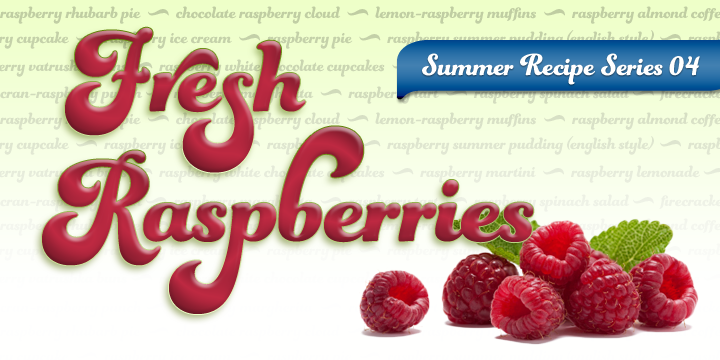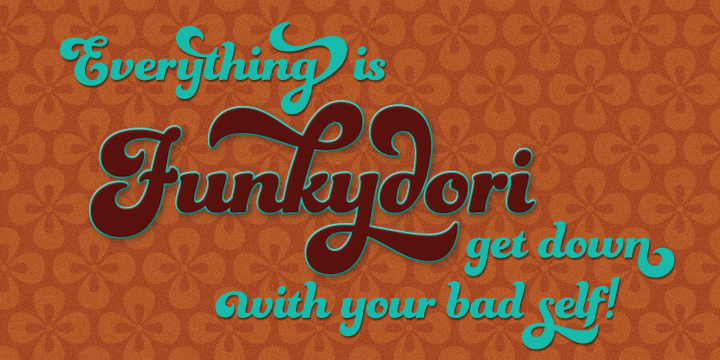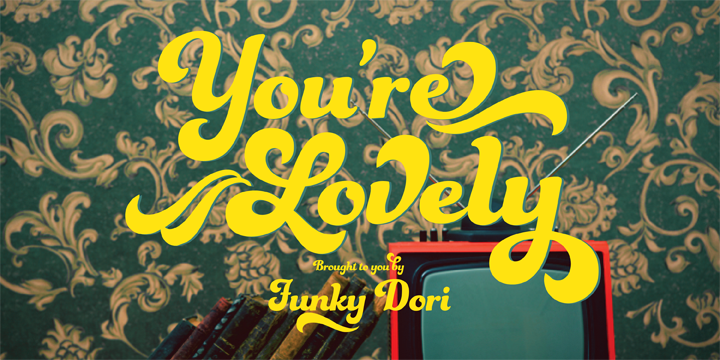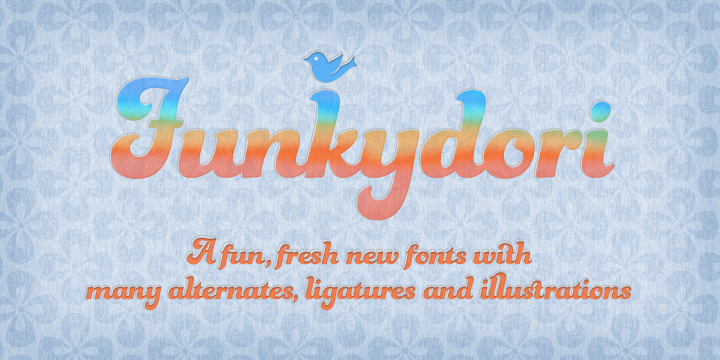
Funkydori is a brush script font family. This typeface has two styles and was published by Laura Worthington.
I am a child of the Seventies. I grew up rocking the rainbow striped bellbottoms, decorating my room with posters of Unicorns and watching The Electric Company. Funkydori is my nod to the groovy and far out days of this decade.
Funkydori comes equipped with 213 alternates, 13 discretionary ligatures and 38 ornaments (which include 8 wallpaper tiles) allowing for a wide variety of looks. The use of contextual alternates keeps it looking ideal and enabling Titling Alternates switches the design to an unconnected script.